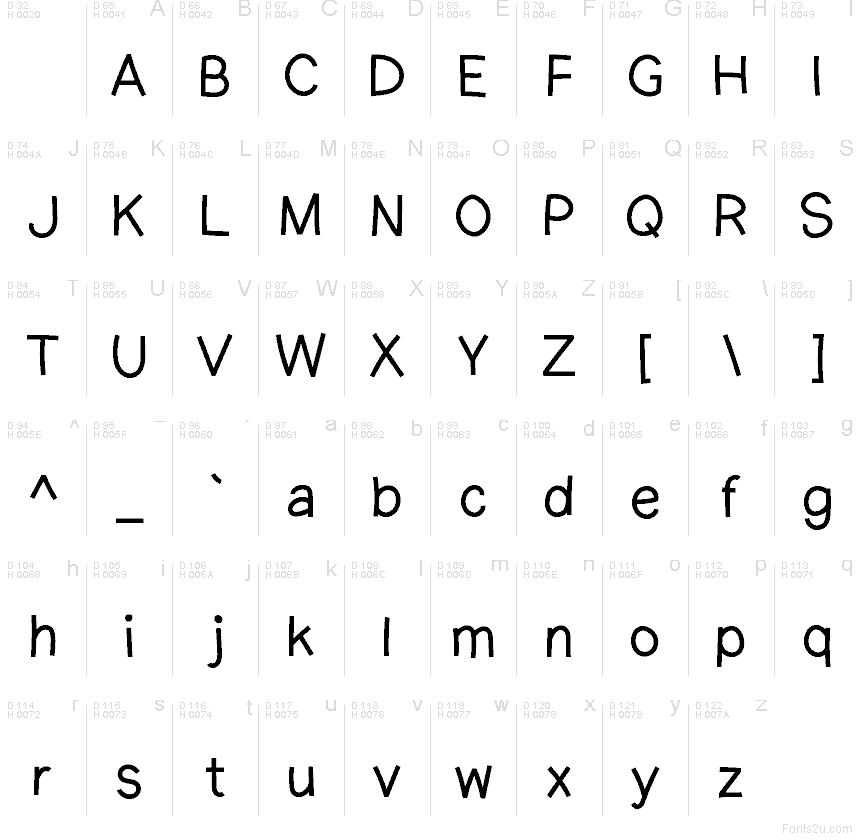
Creating Minimalist font by Hanna Bie is a free display typeface that gives you clean, modern lettering without losing warmth. Its softly rounded shapes, even strokes, and generous curves feel airy and uncluttered, but not cold or mechanical. Letters sit close enough to feel cohesive while still breathing, which makes headlines and short phrases look polished with almost no effort.
Using Creating Minimalist, you can bring a calm, contemporary voice to brand logos, lifestyle packaging, social media graphics, quote posts, website hero text, and simple posters. This free font works beautifully at larger sizes where its smooth curves and subtle quirks can be appreciated. For a balanced layout, pair Creating Minimalist with a plain sans-serif for body text and let this typeface handle the expressive titles.